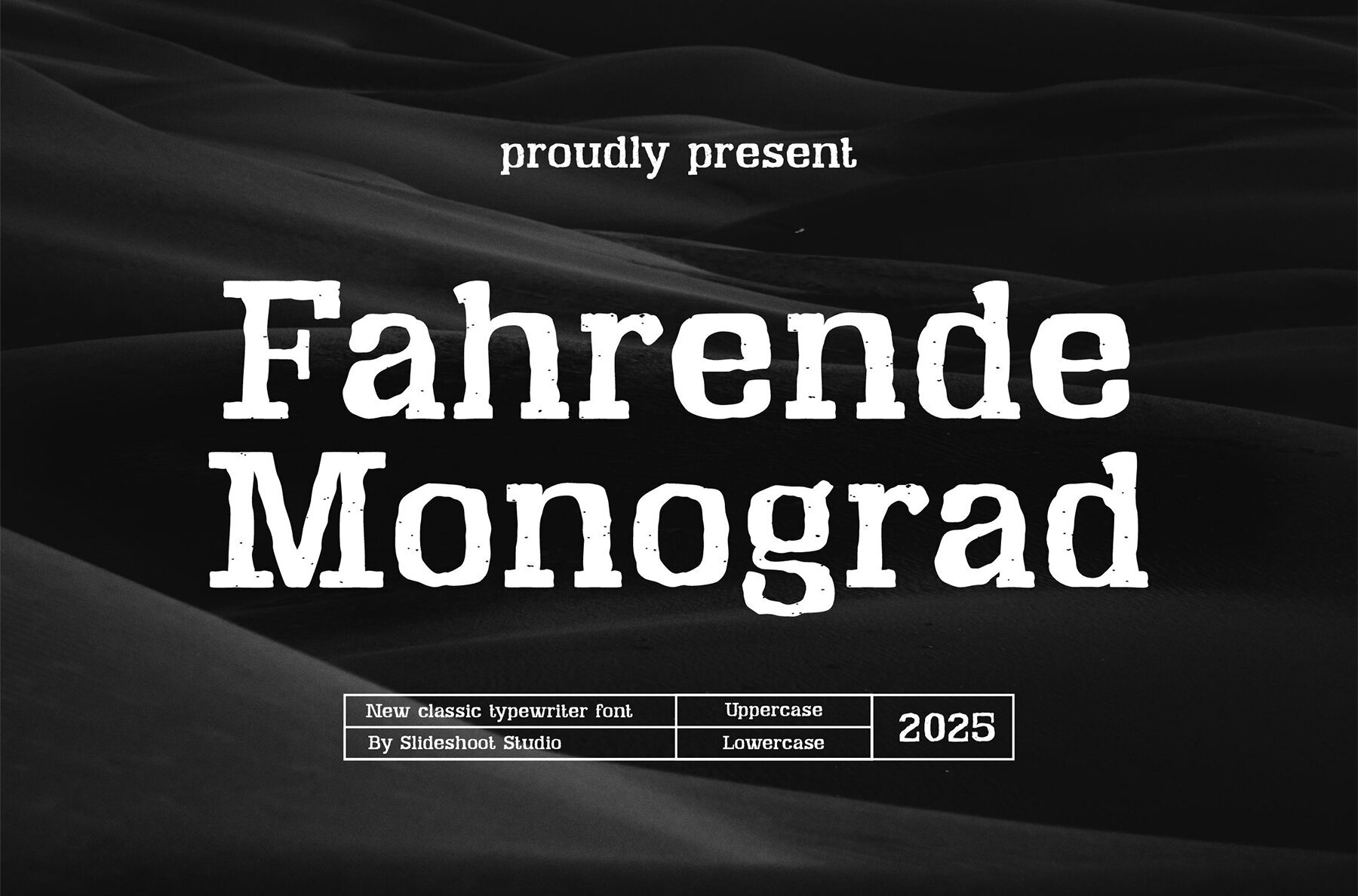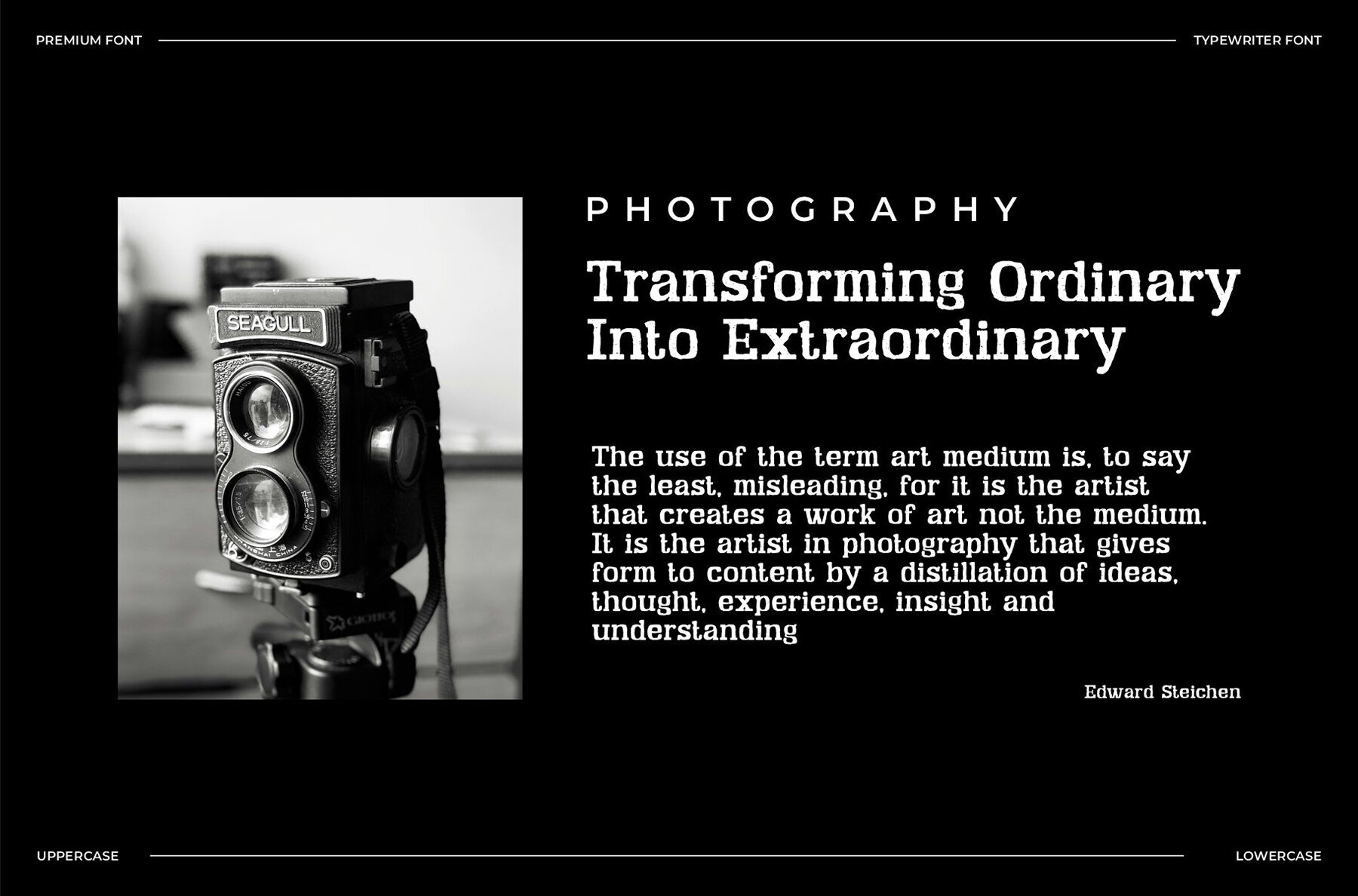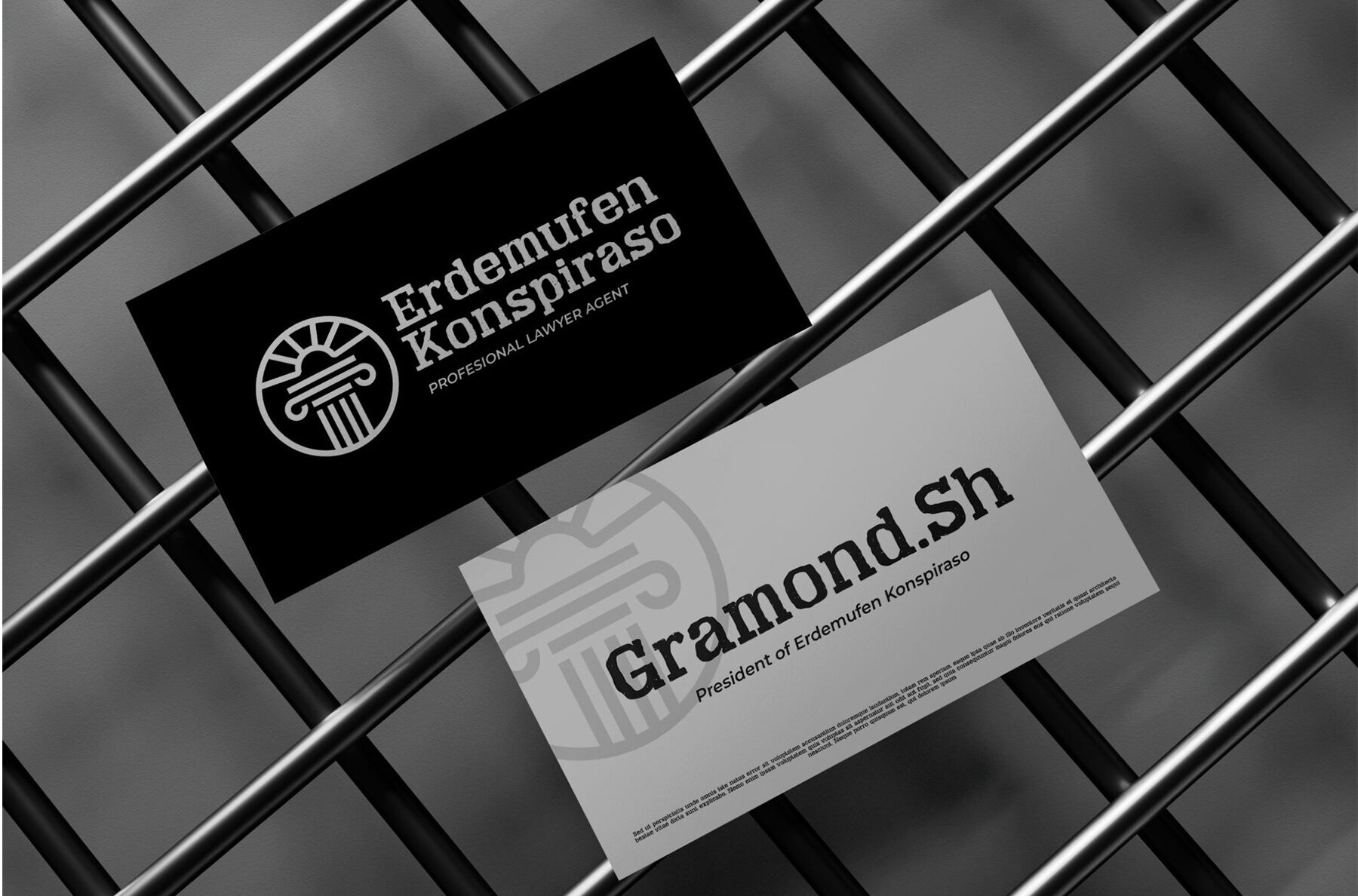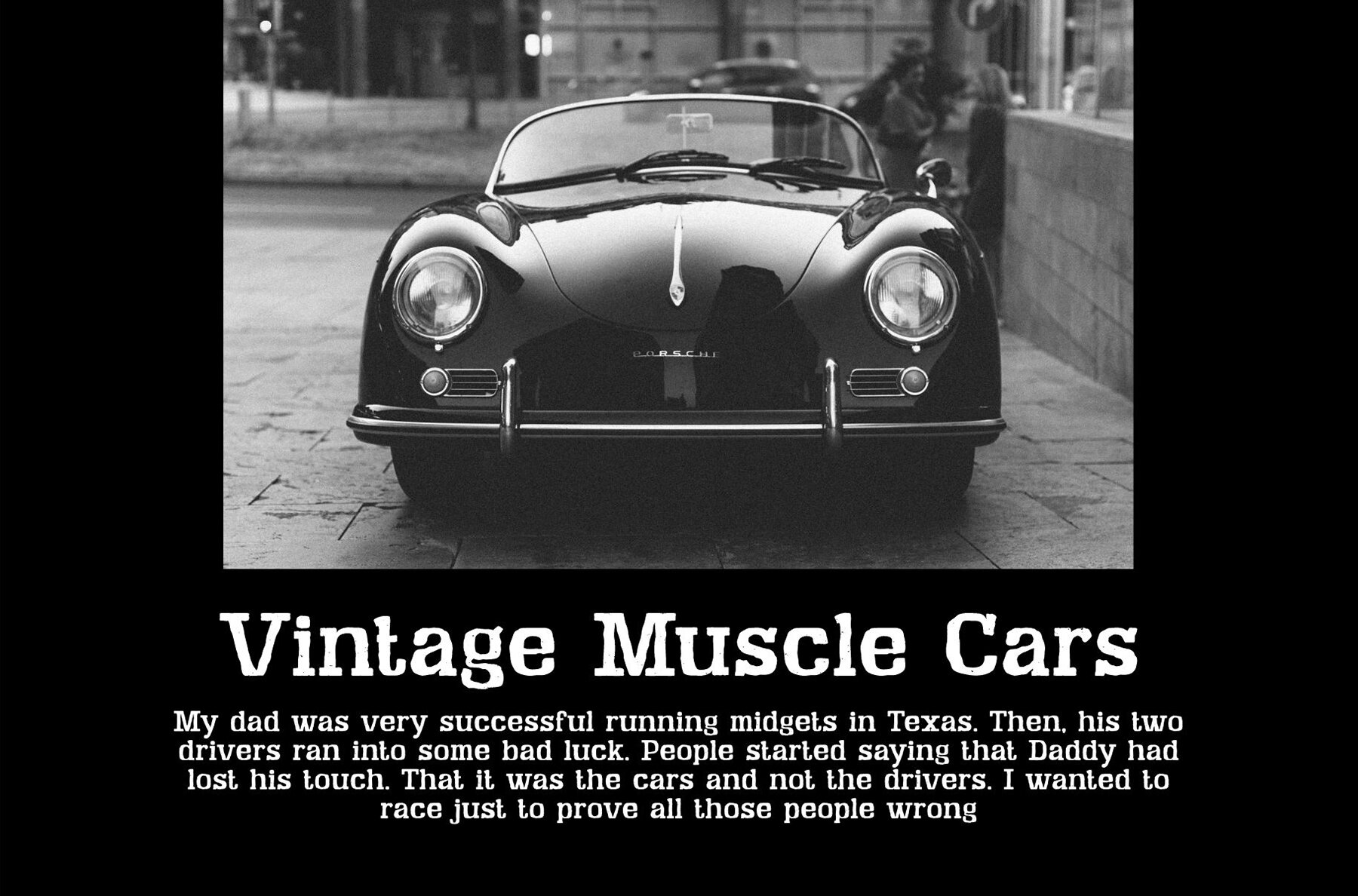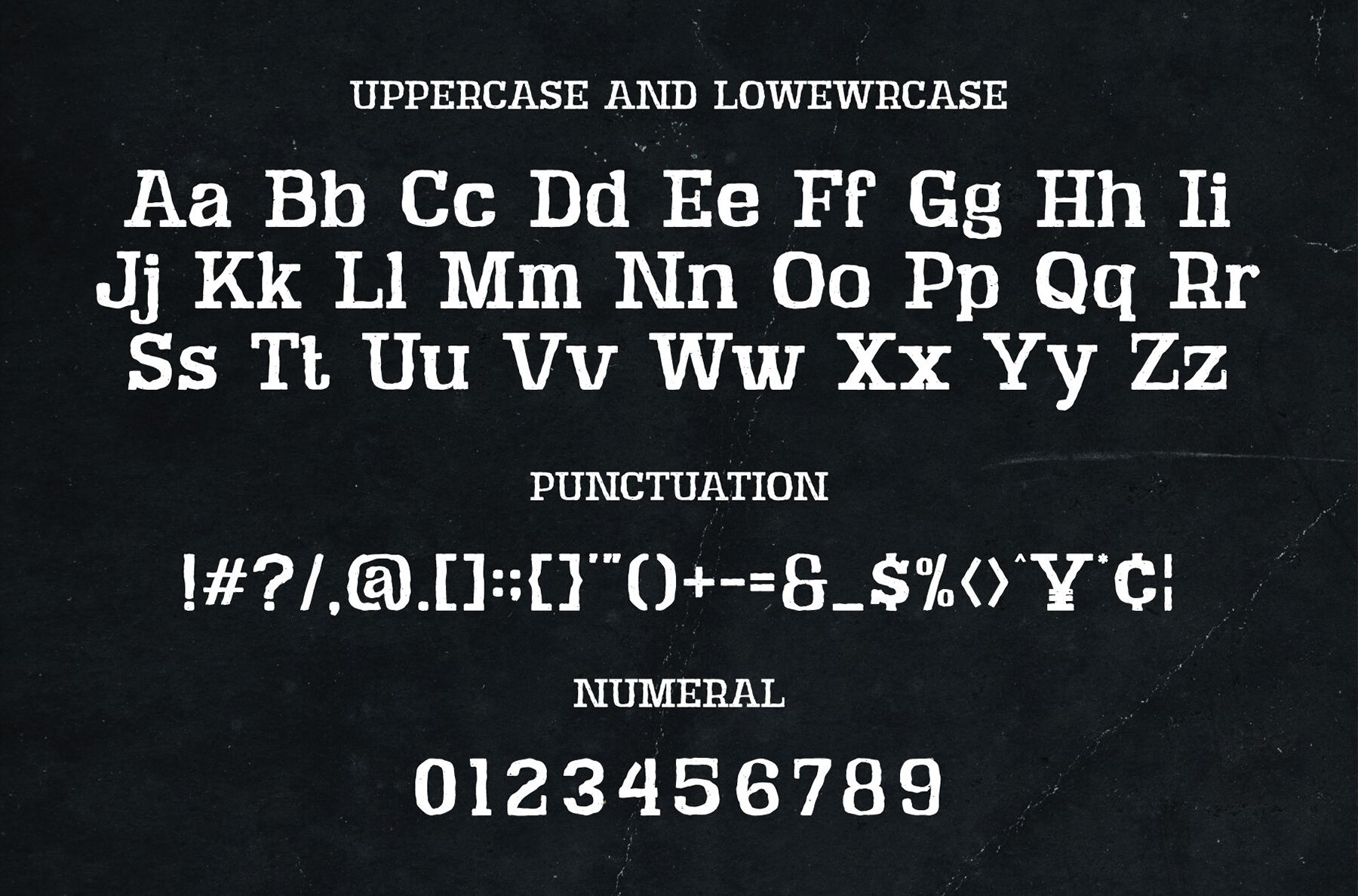
Fahrende Monograd Font
Fahrende Monograd
Introducing Fahrende Monograd, a display font that brings a modern twist to classic typewriter aesthetics. This trendy and playful font is distinguished by its unique wood-themed character, making it an excellent choice for a variety of design projects. Whether you're designing invitation cards, crafting company logos, or tackling movie titles, Fahrende Monograd adds an engaging flair to your creations.Fahrende Monograd: A Classic Take on Typography